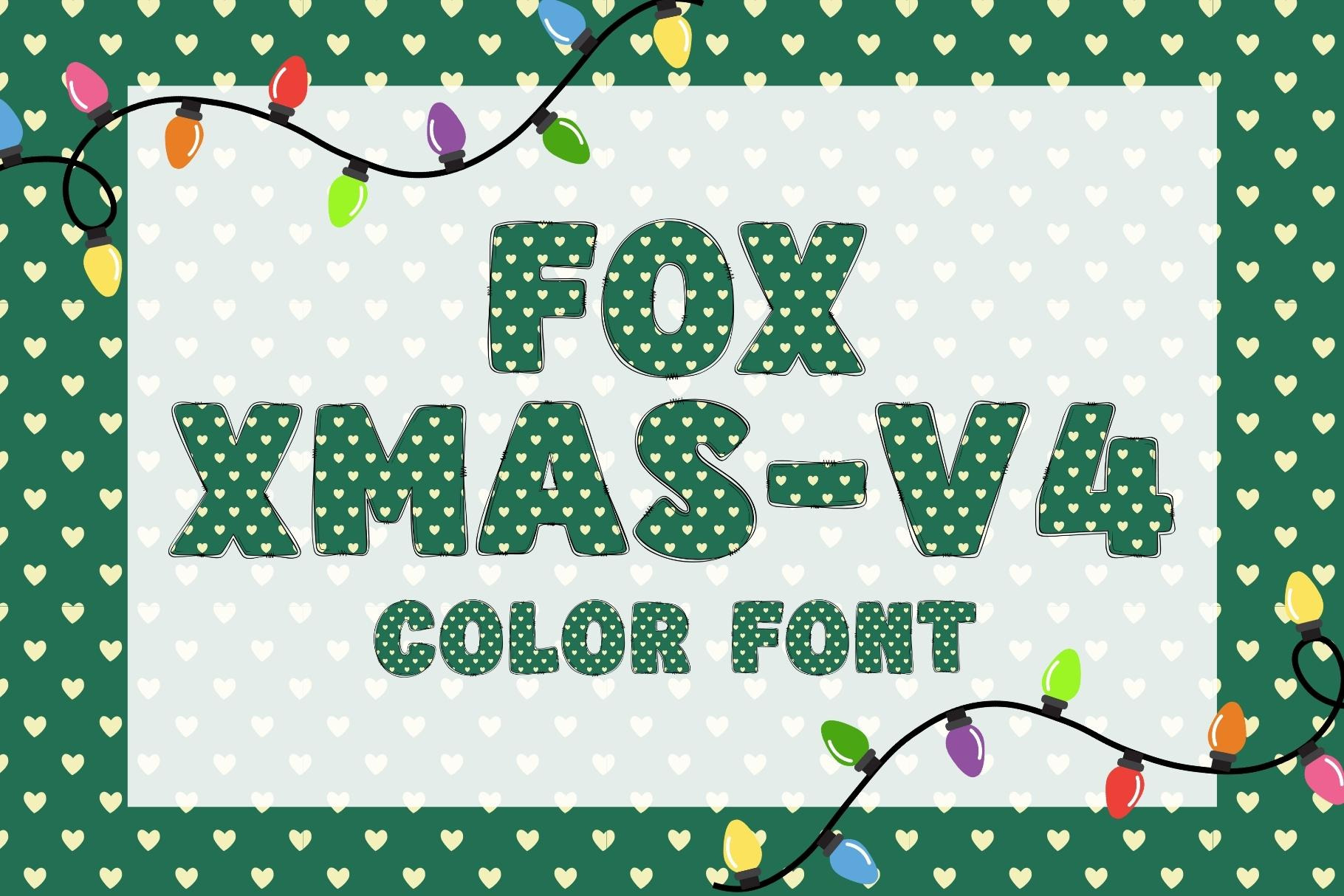
Fox Xmas-V4 Color Font
Fox Xmas-V4 is a cool, and fun color font. Fall in love with its authentic feel and use it to create gorgeous invitations, beautiful stationary art, eye-catching social media posts, and cute greeting cards. Add this beautiful font to each of your creative ideas, and notice how it makes them stand out.